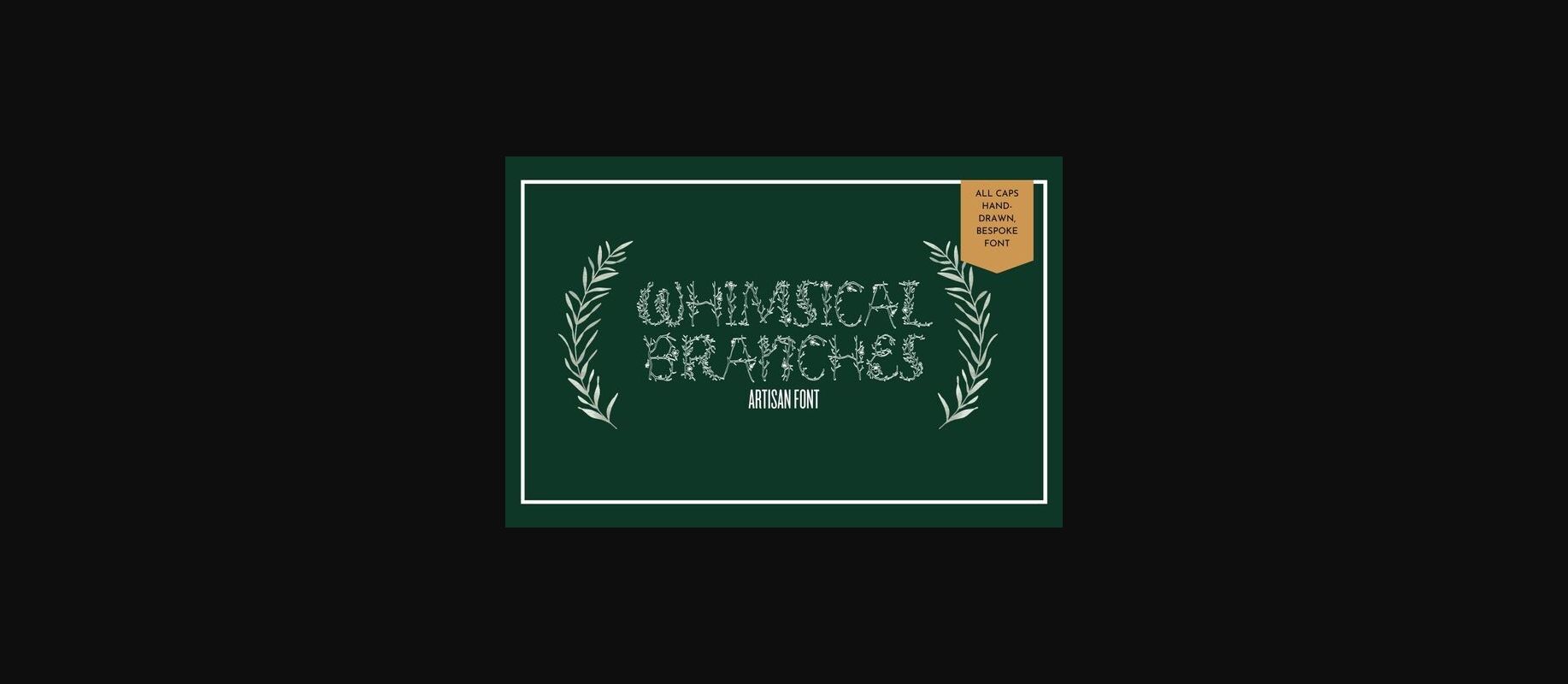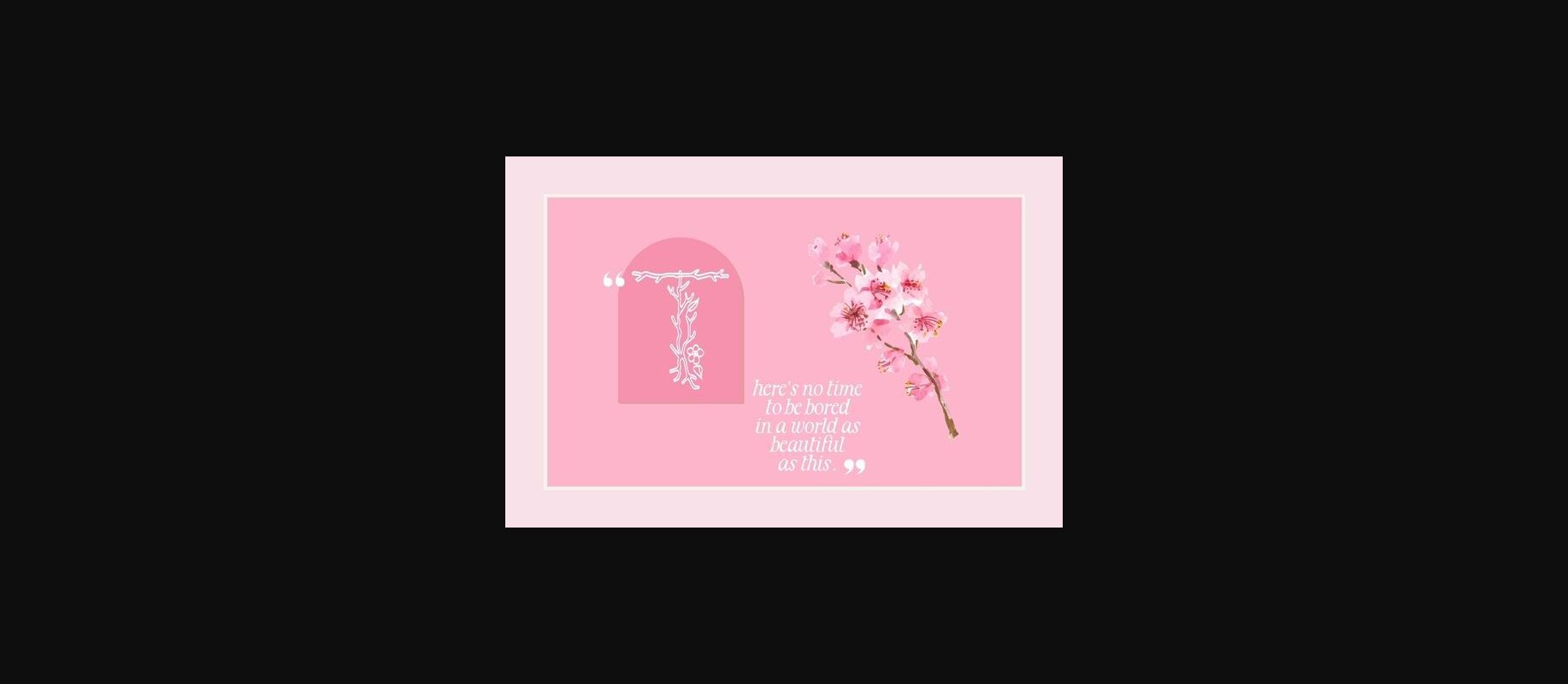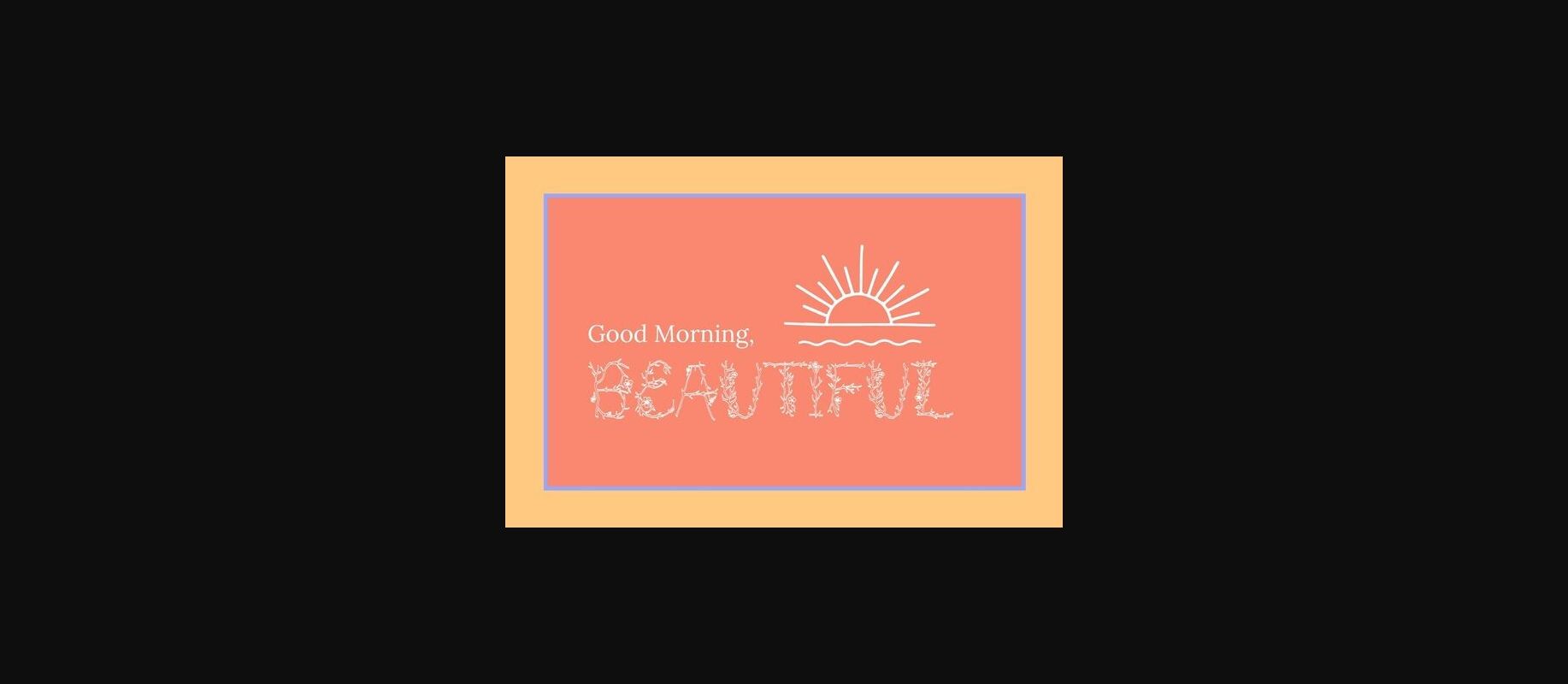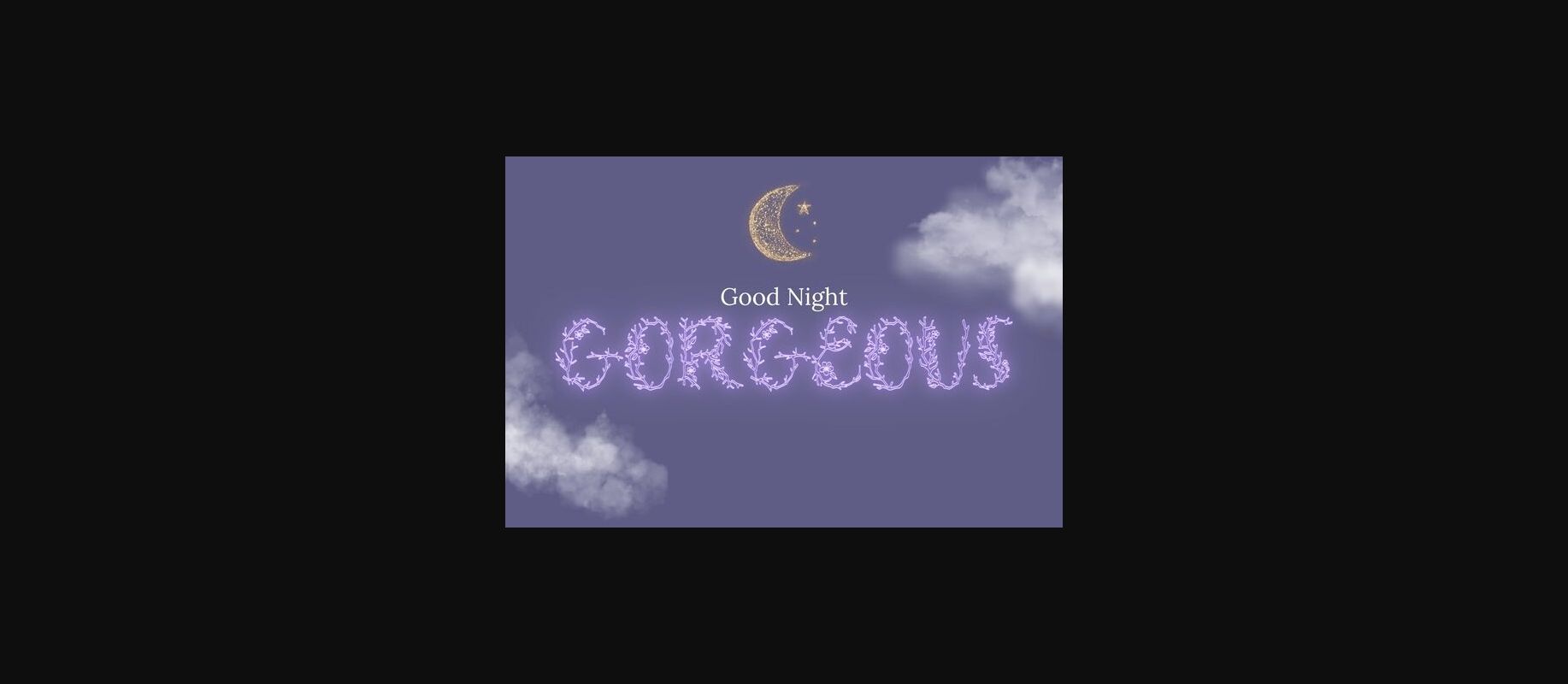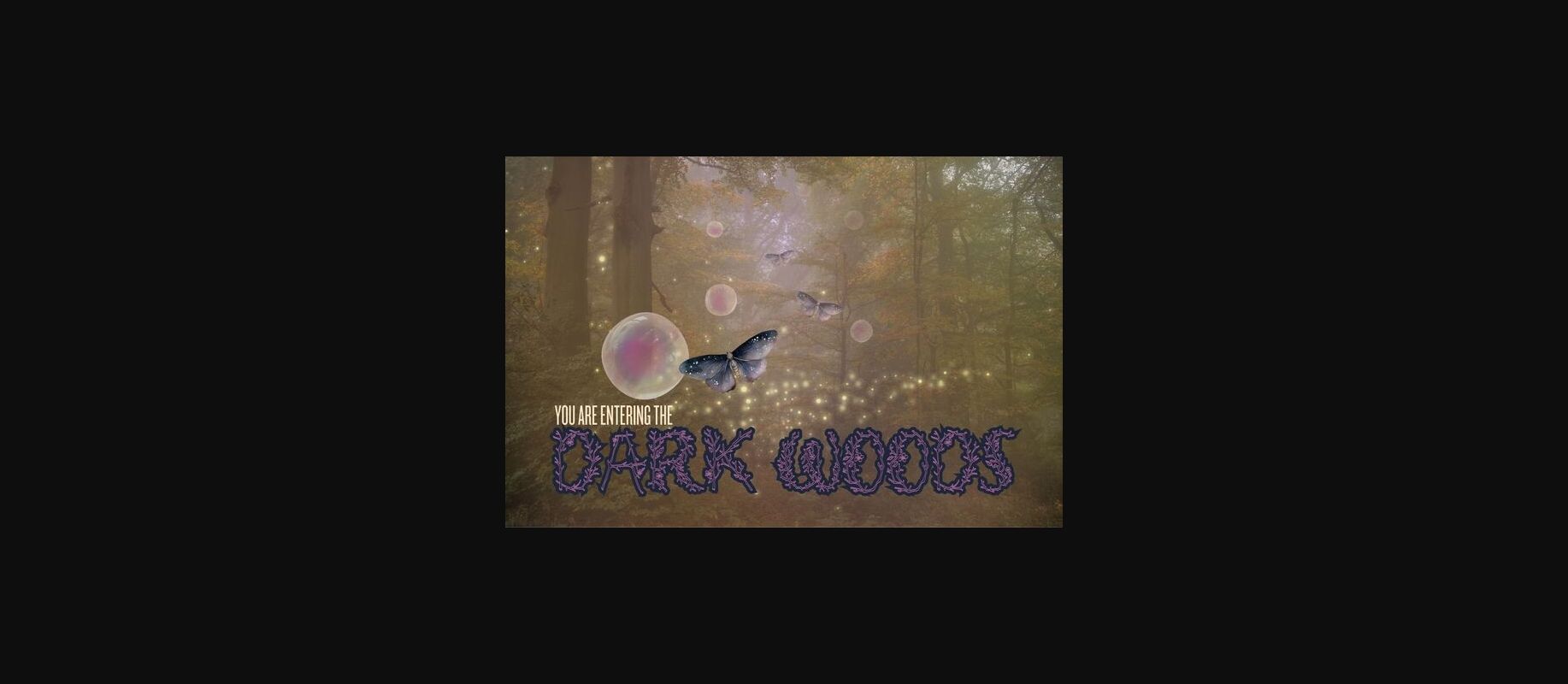
About Branches Font
These whimsical letters are hand-drawn enchanted branches and florals, all inspired by natural beauty.
Infuse your projects with an air of delicate beauty, whether you’re designing invitations for a fairytale wedding, creating dreamy branding for a whimsical boutique, or adding a touch of magic to your digital artwork.